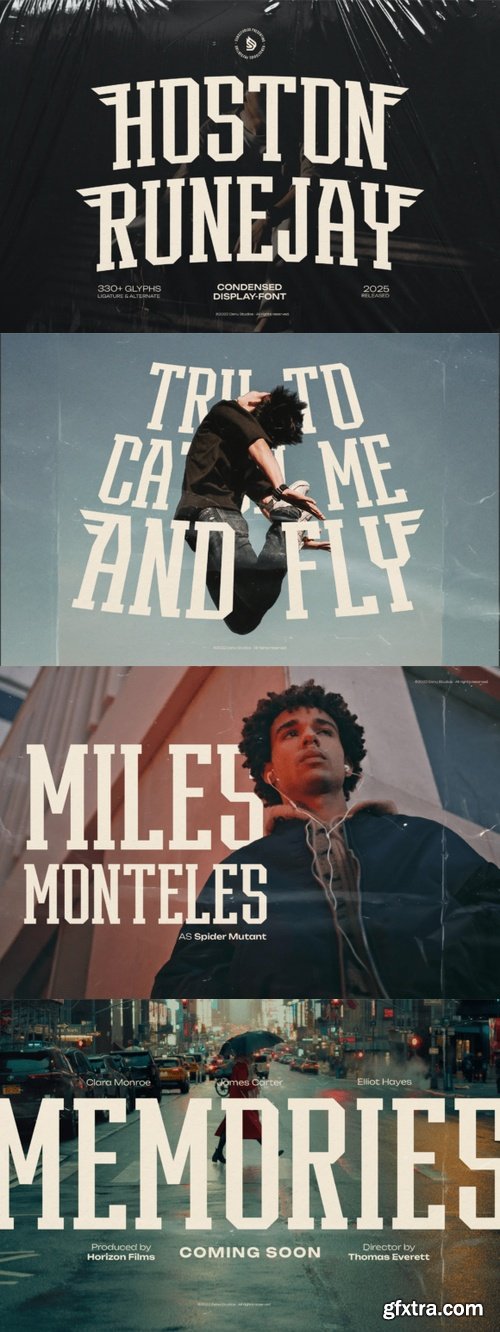
- Hoston Runejay | Condensed Display Font, from Denustudios, suitable for any projects such as: logos, branding projects, homeware designs, product packaging, mugs, quotes, posters, shopping bags, t-shirts, book covers, name card, invitation cards, greeting cards, label, photography, watermark, special events, and all your other lovely projects that need a Condensed Display Font taste.